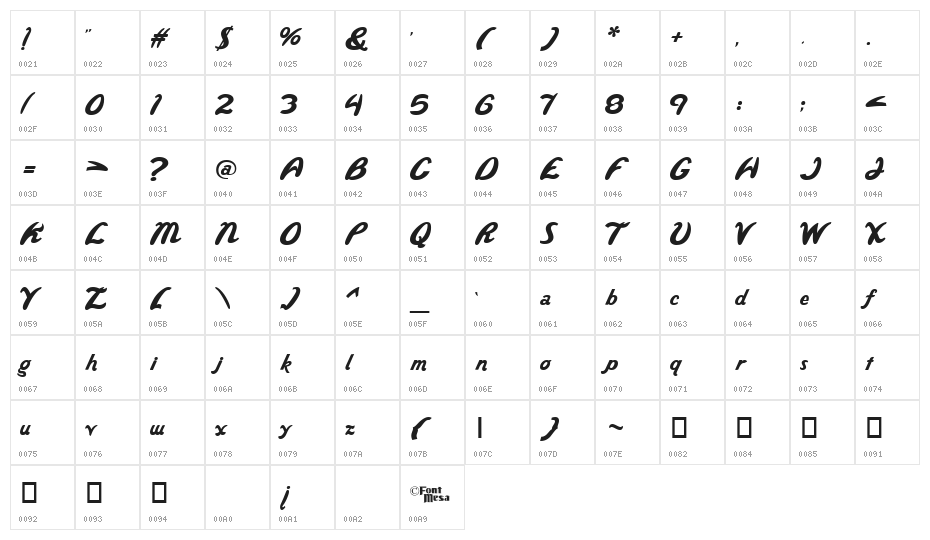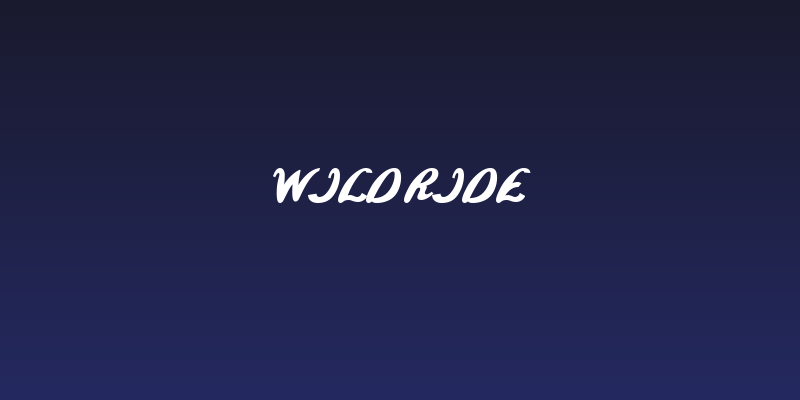
Wild Ride Font
Wild Ride Description
This font features a bold, flowing script style that exudes energy and movement. The characters are connected, creating a seamless and dynamic appearance. The uppercase letters are slightly larger and more pronounced, while the lowercase letters maintain a consistent flow. The numbers and special characters follow the same fluid design, ensuring uniformity across all elements. The strokes are thick, providing a strong visual impact, and the overall design is reminiscent of vintage signage or retro branding.
| Overall Style | Vintage |
| Use Case | Logos, Headlines, Posters |
| Proposed Projects | Ideal for branding projects, logo design, posters, and any creative work that requires a bold, energetic script. |